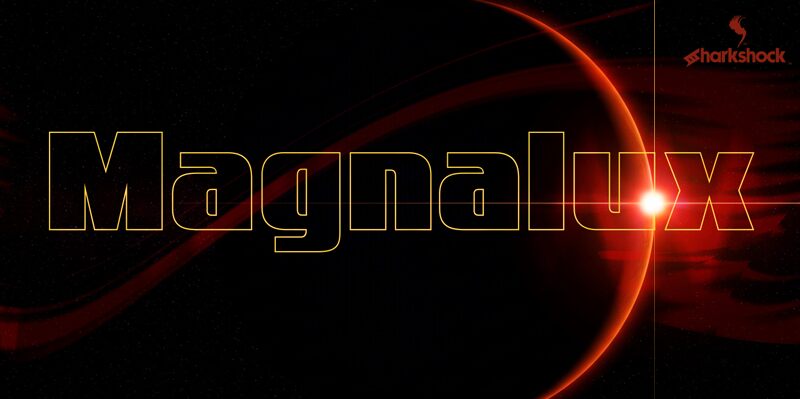
Magnalux font by Sharkshock is a free sans-serif font with a modern and structured design. Industrial and geometric, this typeface comes in slightly condensed letterforms and thick perpendicular strokes. These visual qualities would easily help the font convey an impactful message and high visibility wherever it will be used. Its characters include uppercase letters, multilingual letters, and punctuation.
Magnalux is suitable for many contemporary applications in tech branding and sci-fi themes. Some examples include technology and energy company logos, posters, advertising, book covers, and website headings. The font is also suitable for social media branding, both for publications and profile images, business cards, stationery, and invitations.
After a series of updates to the Republica Minor family, enough changes were made to create an entirely new family: Magnalux. This font retains the overall feel of its predecessor while featuring many characters that have been completely redrawn, resulting in a refreshed and more consistent look. The uppercase characters are bold with minimal negative space, while the lowercase letters emphasize clean curves and broad line weights, featuring short ascenders and descenders. These characteristics are also evident in the numerals. Magnalux is perfect for use in team logos, magazine covers, or web graphics.